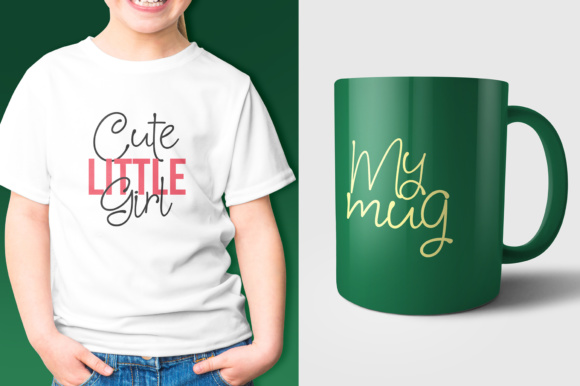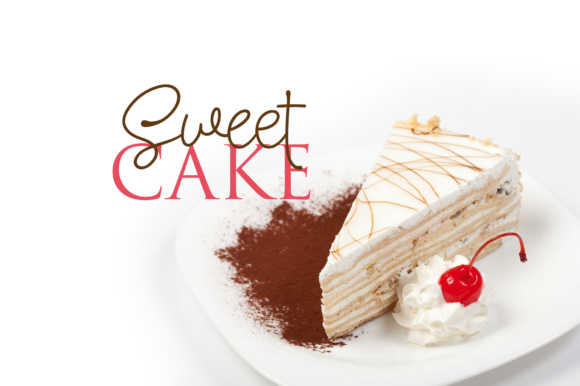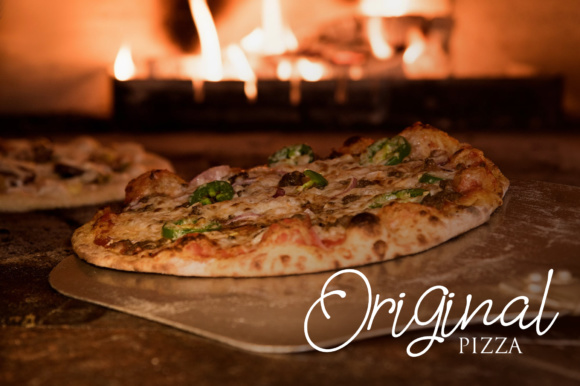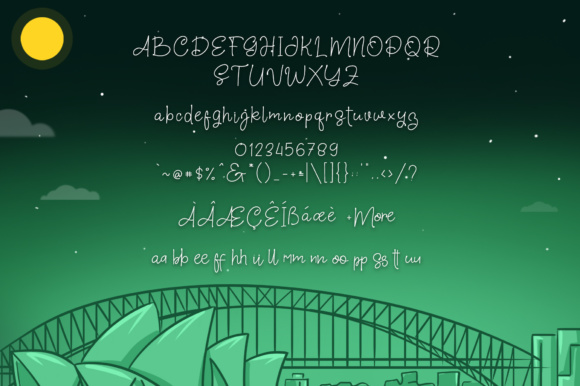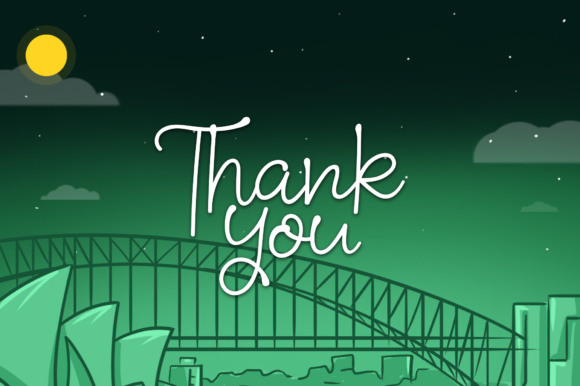
About Night in Sidney Font
The Night in Sidney is a fun script font which comes in two styles: regular & slant. Itβs suitable for logos, greeting cards, branding, posters and any other design that needs a elegant typeface.